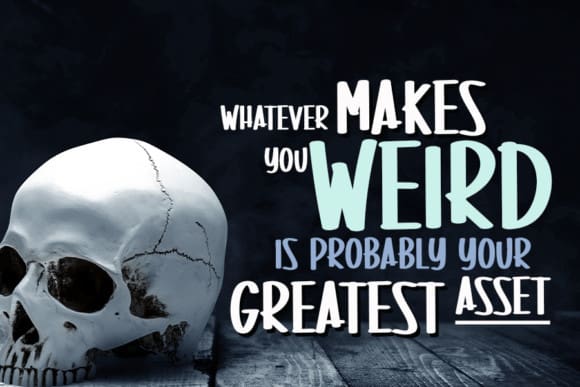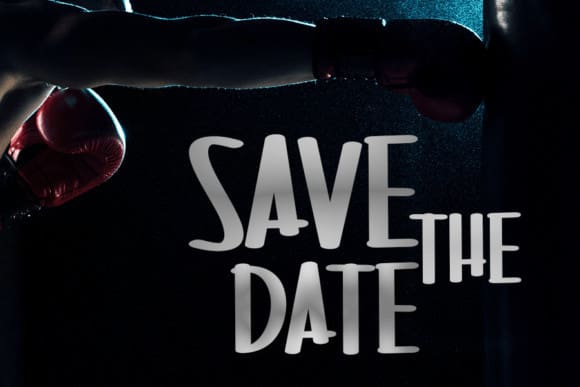
Blank Beach Font
Blank Beach Font is a beautiful display font perfect for magazines and crafts. Add it to your fonts library, and use it to create spectacular designs!